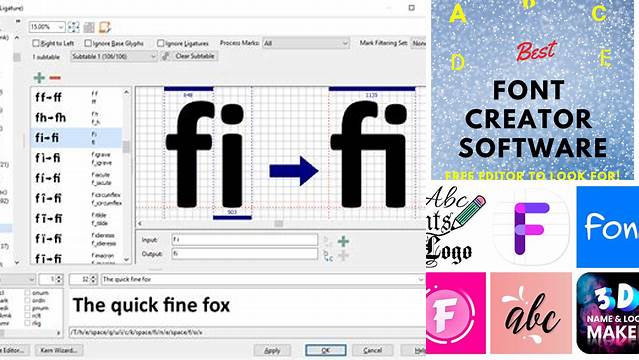
Design Your Own Fonts: Free Font Creator Apps
Hey guys! Ever looked at a font and thought, "I could totally make something better"? Well, you're in luck! Creating your own fonts isn't just for the pros anymore. Thanks to some awesome font creator free app options, anyone with a bit of creativity can dive in. This article will walk you through everything you need to know to get started, from the basics to some advanced tips and tricks. Let's get creative and make some unique fonts! We'll explore the world of digital typography, and how you can become a font designer. This article will provide you with insights into the best free font creation tools, essential design principles, and practical advice to help you bring your font ideas to life. Get ready to turn your handwriting or design concepts into functional, beautiful fonts that you can use for personal projects, commercial endeavors, or just for fun. So, without further ado, let's start crafting those fonts, shall we?
1. What is a Font Creator App and Why Use One?
So, what exactly is a font creator free app? Essentially, it's software designed to let you design and create your own digital fonts. Think of it as a digital workshop for letters, numbers, and symbols. Unlike traditional font design, which required specialized equipment and skills, these apps make it super accessible, even if you're a beginner. Why bother using one? Well, there are a ton of reasons. Maybe you want a font that perfectly reflects your brand identity. Maybe you're tired of the same old fonts and crave something unique. Or maybe you just want to see if you can! Creating your own fonts allows for unparalleled customization, enabling you to tailor every aspect of your typography to your exact needs. This level of personalization can significantly enhance the visual impact of your designs, ensuring your message stands out from the crowd. Furthermore, the process of creating fonts is a great way to learn about typography, enhancing your design skills and providing a deeper appreciation for the art of font design. The accessibility of these apps means that anyone, regardless of their design background, can embark on this creative journey and experiment with font creation. Embrace your creative side and jump into the awesome world of font design!
2. Top Free Font Creation Software for Beginners
Alright, let's get down to brass tacks and talk about some awesome font creator free app options. There are several fantastic choices out there, each with its own strengths and weaknesses. One popular option is FontForge, a powerful, open-source font editor that's packed with features. It might have a bit of a learning curve, but the flexibility and control it offers are worth it. Another excellent choice is BirdFont, which is designed for beginners. This user-friendly program focuses on simplicity and ease of use, making it perfect for those new to font design. It offers a streamlined interface and intuitive tools, so you can quickly start creating your own fonts without getting bogged down in complex features. Additionally, there is also another good choice for a font creator free app which is Glyphs, a more advanced option. It does provide a trial version, so you can test the waters. But, if you're looking for a completely free solution, you might want to check out online font creators that often provide a quick and easy way to create fonts. These tools can be used from any web browser, eliminating the need for software installations. Consider which one best fits your needs and what software you're most comfortable with. Always remember, practice makes perfect, so don't be afraid to try out a few different programs to see which one works best for you. Take your time, experiment with different fonts, and slowly create your own unique collection of font designs. Don't hesitate to explore all options available, because each one of them is beneficial in their own special way!
3. Understanding the Basics of Font Design
Before you dive into a font creator free app, let's cover some fundamentals of font design. First off, you'll want to understand the anatomy of a typeface. This includes things like the x-height (the height of lowercase letters), the ascender (the part of a letter that extends above the x-height, like in 'b' or 'd'), and the descender (the part that dips below the baseline, like in 'p' or 'g'). Understanding these elements is crucial for ensuring your font is legible and visually appealing. Next, think about the different styles of fonts. There's serif (fonts with small strokes at the end of the letters), sans-serif (fonts without those strokes), and script fonts (which mimic handwriting). Each style evokes a different mood and is suitable for different purposes. Another key element is kerning, which is the spacing between individual letters. Good kerning is essential for readability. Poor kerning can make your font look clunky and unprofessional. Also, consider the weight (how bold or light the font is) and the width (how condensed or extended the letters are). These factors greatly affect the overall feel of your font. Remember that it's a balance of creativity and technical understanding. It is recommended to play around and experiment with different shapes, sizes, and designs to find your own unique and stylish design. Understanding the technical aspects of font design will allow you to create fonts that are not only visually appealing but also work flawlessly across various platforms and applications.
4. Sketching Your Font Ideas: From Paper to Digital
Okay, so you've got an idea for a font. Awesome! The next step is to start sketching. Grab a pencil and paper, and let your imagination run wild. Don't worry about perfection at this stage. The goal is to get your ideas down on paper. Sketch out the alphabet, numbers, and any special characters you want to include. Experiment with different styles, shapes, and thicknesses. Once you have a few sketches you like, it's time to bring them into your font creator free app. You can either scan or photograph your sketches and import them into the software, or you can use a drawing tablet to create your letters digitally. Using a drawing tablet provides more precise control and allows you to easily make adjustments. It's important to maintain a consistent style across all your characters. Consistency is key to a cohesive and professional-looking font. Make sure the weight, width, and overall design of each letter are consistent. Refine your sketches in your chosen software. Use the tools available to clean up the lines, adjust the curves, and perfect the shapes. This is where you can fine-tune your designs and create a polished final product. This also involves refining your initial sketches within the digital environment, utilizing the tools to clean up lines, adjust curves, and perfect the shapes. Remember, the sketching phase is essential for translating your creative vision into a functional and visually appealing font. Taking the time to carefully sketch your ideas will give you a solid foundation to build upon as you move into the digital design phase.
5. Digitizing Your Sketches with a Font Creator App
Alright, your sketches are ready, now it's time to digitize them using your font creator free app. The process can vary slightly depending on the software you're using, but the general steps are similar. Start by importing your sketches. Most apps allow you to import images in various formats (like JPG or PNG). Once imported, you'll trace over your sketches using the software's drawing tools. This might involve using a pen tool to create Bézier curves, which are essential for smooth, scalable lines. Be patient and precise as you trace each letter. Take your time to ensure the shapes match your original sketches. Pay close attention to the details, such as the curves, angles, and thickness of the strokes. Once you've traced a letter, you'll typically adjust the kerning (the space between letters) and the side bearings (the space on either side of the letter). Kerning and side bearings are essential for readability and the overall appearance of your font. Make sure each letter has appropriate spacing for a balanced and professional look. Keep in mind that this is the most time-consuming part of the process, but the end result will be worth it. Remember, your goal is to create a font that is not only visually appealing but also functional and easy to use. The key is to take it step by step. Soon enough, you'll have your first font!
6. Mastering Letter Shapes and Curves
When using a font creator free app, mastering letter shapes and curves is paramount. Here's how to do it. First, learn the basics of Bézier curves. They're the backbone of most font creation software. Practice creating smooth, flowing lines with these curves. The more you practice, the better you'll become at controlling them. Pay attention to the points that define the curves. Adjusting these points allows you to refine the shape of your letters. Experiment with different types of curves to achieve different effects. Next, focus on consistency. The curves and shapes of your letters should be consistent throughout your font. Ensure that the stems, bowls, and serifs are uniform. Use the software's tools to copy and paste similar shapes to maintain consistency. Use gridlines to create accurate and well-proportioned letters. Consider the overall balance of each letter. The design must be visually balanced and pleasing to the eye. This includes ensuring that the letter's weight, height, and width are in harmony. It's also a good practice to always check your work. It's crucial to review your work and make necessary adjustments. Keep practicing to achieve the best result! Your attention to detail will significantly impact the professionalism and appeal of your final font.
7. Spacing and Kerning: Making Your Font Readable
No matter how cool your letter shapes are, if your font is hard to read, it's a no-go. That's where spacing and kerning come in. Your font creator free app will have tools to adjust the spacing between letters (kerning) and the space on either side of each letter (side bearings). Kerning is essential for readability. Poor kerning can make letters appear crowded or disjointed. Kern pairs (specific letter combinations, like 'AV' or 'Wa') will need special attention. Ensure there's a consistent amount of space between the letters. Use the software's preview feature to test your font with different words and phrases. This helps identify potential kerning issues. You can also create a custom kerning table. In addition, pay attention to the side bearings. These are the spaces on either side of each letter. Ensure that each letter has enough space so that it does not collide with other letters. The key is balance. Your font should be easy to read and visually appealing. Remember to review your work frequently and make the necessary adjustments. The goal is to create a font that is not only beautiful but also practical and user-friendly.
8. Adding Glyphs and Special Characters
Don't forget the extras! A good font needs more than just the alphabet. With your font creator free app, you'll want to add glyphs (symbols and alternate character shapes) and special characters. Start by adding numbers and punctuation marks. Make sure they match the style of your alphabet. Include the common characters like periods, commas, exclamation points, and question marks. Next, consider adding accented characters (à , é, ü, etc.) if you want your font to support multiple languages. This can significantly increase the versatility of your font. Add symbols, such as ampersands (&), at signs (@), and hashtags (#). Decide if you want to include ligatures (joined letters, like 'fi' or 'fl'). This can add a unique touch to your font. Include alternate characters to provide design variety. These are different versions of the same letter, symbol, or number. Experiment with these characters to give your font more character. Be consistent. The same design principles should apply to all glyphs and characters. Keep the same weight, style, and overall look for a cohesive font. These features enhance the functionality and versatility of your font, making it suitable for various applications. By carefully designing these additional characters, you ensure that your font is well-rounded and capable of meeting the demands of different design scenarios.
9. Testing Your Font: Ensuring It Works Everywhere
Before you release your font to the world, you need to test it extensively. Test your font in different software programs (like Word, Photoshop, etc.). Make sure it displays correctly in various applications. Test your font on different operating systems (Windows, Mac, etc.). Compatibility across different platforms is essential. Check how your font looks in various sizes and weights. Ensure that it's readable at small sizes and looks good in bold. Print out your font to see how it looks on paper. This is a great way to catch any design flaws you might have missed on screen. Use test sentences (like "The quick brown fox jumps over the lazy dog") to check all the letters and characters. Check for any kerning issues or spacing problems. Once you're satisfied, export your font in different formats (like .OTF and .TTF). These formats are widely supported. If you find any issues during testing, go back to your font creator free app and make the necessary adjustments. Thorough testing ensures that your font functions correctly and looks great on any device. This step is crucial to provide a user-friendly experience to all users and applications. Make sure your fonts are top-notch before you unleash them! This final step will make you the best font creator ever!
10. Exporting Your Font: Choosing the Right Format
Alright, so you've tested your font, and it's looking amazing. Now it's time to export it! Your font creator free app will likely offer a few different export formats. The most common ones are .OTF (OpenType Font) and .TTF (TrueType Font). .OTF fonts are generally recommended because they can contain more advanced features, such as ligatures and stylistic sets. .TTF fonts are older, but they're still widely supported, especially on older systems. When exporting, make sure you include all the characters and glyphs you designed. You don't want to leave anything out! Some software might let you customize the export settings. For example, you can specify the character encoding. This is usually Unicode, which supports a wide range of characters from different languages. Make sure to save the source file of your font. You'll need it if you want to make any changes later. Give your font a clear and descriptive name that includes your name or brand. This makes it easier to identify and manage. Choose the right format to ensure that your font works properly across all applications and platforms. Following these guidelines can help you correctly prepare your custom font for use in any setting.
11. Font Creator Apps for Commercial Use: Legal Considerations
Thinking of selling your font? Awesome! But before you make any money, you need to consider some legal stuff. Make sure the font creator free app you're using allows commercial use. Some free software has licensing restrictions. Read the terms of service carefully to avoid any surprises. You'll also need to think about copyright. You own the rights to the font you create, but you need to protect it from unauthorized use. Consider registering your font with the relevant copyright authorities. Think about a license agreement. This is a legal document that outlines how users can use your font. It should cover things like the number of users allowed, the types of projects the font can be used for, and any restrictions on modifying or redistributing the font. Do your research. Check out other font licenses to get an idea of what to include. If you're planning to sell your font, it's always a good idea to consult with a lawyer to ensure you're complying with all the legal requirements. Understanding these legal aspects is crucial for protecting your creative work and ensuring your font is used ethically and legally.
12. Monetizing Your Fonts: Selling Your Creations
So, you've created a killer font and want to make some cash? Here's how to monetize your creations, after you use your font creator free app. The first thing to consider is where you'll sell your font. There are plenty of online marketplaces, such as Creative Market, Etsy, and MyFonts. These platforms offer a wide audience and can handle the payment processing for you. You can also set up your own online store on your website. This gives you more control over the branding and pricing. Set a fair price for your font. Research the prices of similar fonts to get an idea of what to charge. Your price will depend on the quality of your font, the number of characters, and the license type. Create a strong brand for your font. This can include a name, logo, and website. High-quality images of your font are also crucial. Show off your font in various applications. Use mockups to display your font in action. You can also create demo versions of your font, which people can try before they buy. Consider offering different license options, such as personal use, commercial use, and extended licenses. These licenses will allow you to cater to a broader range of customers and generate more revenue. By understanding all the options and legalities, you can make a smart move and create a high-demand font!
13. Free Font Creator Apps: Features to Look For
When choosing a font creator free app, consider the features that matter most to you. First, look for a user-friendly interface. The app should be intuitive and easy to navigate. You don't want to waste time fighting with the software. Consider the drawing tools. Ensure the app provides a variety of drawing tools, such as pen tools, shapes, and brushes. This will give you more control over your designs. Check for advanced features like kerning and hinting. Kerning is crucial for readability, and hinting helps the font look good on different screen resolutions. Make sure the app supports multiple export formats. This allows you to use your font across different platforms and devices. Check for import and export options. You'll want to import images of your sketches and export your finished font in a variety of formats. Community support is also essential. Many apps have online communities where you can find tutorials, tips, and help. Research the app's updates and support. Choose an app that is regularly updated and has good support. Always remember to choose a free font creator app that matches your needs. These elements will help you create your font smoothly and make the process more enjoyable. Choosing the right font creator app is the first step to creating an amazing font!
14. The Importance of Font Design Consistency
Consistency is key when you're using a font creator free app. Consistency in font design is crucial for creating a polished and professional-looking font. Every character must have a consistent style throughout your font. This ensures that the font looks cohesive and works well. Pay close attention to the weight of each letter. Ensure that the strokes have a similar thickness. This gives your font a sense of harmony. The height and width of your letters must be uniform. These factors are essential for readability and design. Make the spacing between each letter consistent. Adjust the kerning so that there's a balanced space between all letters. All your characters should follow the same design principles. Even the special characters should be consistent with the alphabet. In this way, you can create a professional and appealing font. Remember, the goal is to create a font that is not only visually appealing but also functional and easy to use. Consistency helps the font look professional and reliable. Always review your font design and make the required adjustments for a great result. Make sure every character has a consistent design and look.
15. Using a Drawing Tablet with Your Font Creator App
Using a drawing tablet with your font creator free app can significantly enhance the font creation process. A drawing tablet gives you more control and precision when drawing your letters. This results in more accurate and polished designs. It also offers pressure sensitivity, which means you can vary the thickness of your lines by pressing harder or softer on the pen. This can add detail and character to your fonts. Consider the benefits. A drawing tablet helps you create smooth curves and shapes, which are essential for font design. It gives you a more natural and intuitive drawing experience compared to using a mouse. Set up your drawing tablet with your font creation software. Most software is compatible with drawing tablets. Experiment with different pen settings and pressure curves to find what works best for you. Start by sketching your letters on paper. You can then trace your sketches in the app. Take your time and be precise with the tablet. The result will be well worth the effort. This process allows you to have a fully integrated creative experience. Always remember to practice, so you can create your own unique fonts!
16. Color Fonts: Adding Color to Your Creations
Color fonts are the latest trend in typography. With a font creator free app, you might be able to create color fonts. A color font is a font that includes multiple colors in each character. This makes it easier to create colorful and eye-catching designs. Not all font creators support color fonts. Check if your chosen app offers this feature. If it does, it might support different color font formats, such as SVG (Scalable Vector Graphics). Design your characters with different colors. You can use layers to create complex designs. Keep in mind that color fonts can be more complex to create. Test your color font carefully to make sure it displays correctly on different devices and browsers. The creation of color fonts opens up exciting possibilities for your design projects. Create unique and visually stunning projects with your font design! Not all font creator apps support color fonts. Carefully research which software is right for your design style. Take your time creating each color font and take a new step in the typography world!
17. Kerning and Tracking: Fine-Tuning Character Spacing
Kerning and tracking are essential for making your font look professional. When you use a font creator free app, you'll use tools to manage the spacing between letters and words. Kerning is adjusting the space between individual letters. Your font creator will have tools to adjust kerning. Practice adjusting kerning to improve the appearance of your font. Pay attention to pairs of letters that look awkward. These pairs need kerning. For example, the letters 'AV' often need to be kerned. Tracking is adjusting the overall spacing between all characters in a block of text. Tracking affects the readability and visual balance of the text. You can use the font creator's kerning tools to adjust the tracking. Be subtle in your adjustments. Small changes can make a big difference. Your goal is to create text that is easy to read and visually appealing. Always check your work and make adjustments. Proper kerning and tracking are essential for creating a professional-looking font and well-designed text.
18. Designing for Readability: Tips for Legible Fonts
Readability is crucial for a great font. Your font creator free app can help you design a font that is easy to read. Start by making sure your font has a clear and distinct design. The letters must be easy to differentiate. Avoid overly stylized fonts that are difficult to read. Ensure that your font has sufficient x-height. The x-height is the height of the lowercase letters. Fonts with a large x-height are generally more readable. Keep the letterforms open and avoid tight spaces. Tight spaces can make your font look cramped and difficult to read. Select the right font style. Serifs can help guide the eye, while sans-serifs are often more readable on screens. Choose the right weight and contrast for your font. A font that is too thin or too bold can be difficult to read. Use the right amount of spacing. Kern and track your font carefully. Review your font for readability. Test your font on different text sizes and backgrounds. Test your font on your friends, family, and colleagues. Readability is essential to create a successful font. Your goal is to create a font that is not only aesthetically pleasing but also functional.
19. Understanding Font Licensing: Protecting Your Work
Font licensing is vital for protecting your hard work. After creating your font with a font creator free app, it is essential to understand font licensing. It defines the rights and limitations of using your font. This step will also help you to protect your work. There are many different types of font licenses, such as a personal use license. This is usually used for non-commercial purposes. There is also a commercial use license. This allows your font to be used for commercial projects. Read the license agreement carefully to ensure that your font is used in accordance with the law. Consider including a license agreement with your font. This will prevent unauthorized use. There are several ways to protect your font, like the copyright. You own the copyright for your font. You can register your font with the copyright authorities. This provides additional protection. Your understanding of font licensing will ensure that your font is used legally and to your specifications.
20. Best Practices for Font Design Aesthetics
When designing your font with a font creator free app, there are key aesthetics to consider. Think about the balance. Your font should have a good visual balance. Consider the shapes of the letters. Ensure that your letters have a consistent style throughout your font. This will help in the aesthetics of your font. A font must be well-proportioned. Proportions can affect the aesthetics and readability of your font. Choose a suitable font style. The correct font style will match your intended use. Refine the details of your font. Consider adding special characters, ligatures, and alternates. Testing your font is very important. Test your font on different devices and in various sizes. Aesthetics can improve the overall look and feel of your font. It will influence the user experience. Your font design should attract attention and make a lasting impact. Remember that good font design is a balance of visual aesthetics and functionality.
21. The Role of Font Weight and Style
Font weight and style play essential roles when using a font creator free app. Font weight refers to the thickness of the strokes that form your characters. Styles include things like italic and bold. Font weight is used to create different versions of your font. Choosing the correct weight is essential for readability. Light fonts are good for headlines. Bold fonts are perfect for emphasis. A font's style adds a specific look. Italic fonts can create a sense of movement. Using the right weight and style is important for conveying different emotions in your text. These can also enhance your visual impact. Experiment with different weights and styles to understand how they affect the overall appearance of your font. Selecting the right weight and style depends on the intended use of your font. Understanding how to manipulate font weight and style will improve your font design.
22. Advanced Features in Font Creation Software
Many font creator free apps offer advanced features beyond the basics. Look for OpenType features. OpenType fonts can support ligatures. These are the characters that join to enhance the visual look. Consider stylistic sets. These are multiple variations of your font. Explore kerning and hinting. Kerning improves the spacing between your characters. Hinting improves your font's appearance on various screen resolutions. Explore the software's support for international characters. This allows you to support a wide range of languages. Consider the software's import and export options. The software must also support various formats. Practice different methods to create a high-quality font. By using the advanced features, you can create a font that is both functional and visually appealing.
23. Using Inspiration and Mood Boards in Font Design
Using inspiration and mood boards can make your font creation stand out. Create your mood board. Gathering inspiration will help you. This is the foundation of your project. Browse various sources. Websites, print media, and artwork are all great sources. Think about the mood you want to capture. Your mood board should be consistent. Use your mood board to guide the overall look of your font. You can also create a style guide. This will keep your project's style consistent. Your mood board will inspire you to make your font. Use the mood board for your character designs. Always refer to your mood board throughout the font creation process. This will help you make a unique font and provide an awesome result!
24. Font Creation for Different Design Applications
When using a font creator free app, the application you intend to use your font in can change your design. If you plan to use your font in a logo, keep in mind its scalability. Make sure your font is easily readable. Your font should be clear and easy to read in various sizes and resolutions. When designing your font for a website, consider its legibility. Choose a font that complements the website's overall style. If you are creating a font for print, consider the resolution and color mode. Your font must match your intended format. Create the appropriate design and style for your font. The application will define the characteristics and functionality of your font. Consider the context of your font when you design it. Using different applications with your font will determine how you develop your font. Remember, different design projects require different design decisions.
25. Troubleshooting Common Font Design Issues
When using your font creator free app, you'll likely face common font design issues. First, there may be spacing problems. Make sure there is an adequate amount of spacing between letters. Next, there can be kerning issues. Kerning helps improve the appearance of your font. Review your letterforms. Make sure each letter has a consistent style. Consider the style of your font. Your font's style should be consistent with the overall feel of the design. Take time to review your test words. Test your font for any potential flaws. Troubleshooting can help you improve your font design. Consider the design's style. This step is crucial for your font's usability. It will also help you in fixing your mistakes. Learning how to troubleshoot these common issues will save you time.
26. Creating a Font Family: Designing Multiple Weights and Styles
Creating a font family means designing multiple weights and styles with your font creator free app. This creates consistency across multiple fonts. Start by designing the base style of your font. This will be the foundation for the different weights. Next, add different weights and styles, such as bold and italic. Add variety to your font, but be consistent with the overall design. Create a unified look. Your goal should be to create a font family. Design multiple weights. This will provide a variety of design options. Ensure that all variations match the overall style. Design your font's style consistently. Creating a font family can be a great opportunity. It will also give users more flexibility. Always follow the guidelines and adapt the font family to match. Your font family will provide flexibility and enhance the usability of your font. Your efforts will bring better results and make your font more useful.
27. The Future of Font Design and Technology
The future of font design is exciting. With your font creator free app, you can be on top. Expect more AI-powered tools. AI will help automate many aspects of font creation. The future will bring greater accessibility. Font design will become available to more people. Expect new variable fonts. These fonts can create different weights and styles within a single file. Stay ahead of the curve by learning the new technologies. Keep creating fonts! New technologies will continue to change font design. The combination of creativity and technology makes for the next generation of font design. Your innovation will determine the future of font creation!
28. Font Design Workflow: A Step-by-Step Guide
Here's a guide on how to use your font creator free app. The first step is to plan your font. You should know the goal and style of your project. Next, you should sketch your characters. This will help you with the design's look. Digitize your sketches. Import your sketches into your app. Create your character shapes. Adjust spacing and kerning. These steps will affect readability. Test your font. You will need to test for functionality and usability. Export your font, choose the right format, and make adjustments. This will allow you to create great fonts. By following this step-by-step guide, you will be well on your way to creating your own font. Remember to follow each step for the best results. With practice, you will become a font creator master!
29. Resources and Tutorials for Learning Font Design
Want to learn more about font design? Here are some resources for your font creator free app. Start by checking online tutorials. Online resources can help you with the basics. Explore the software manuals. The software manuals will guide you through the program. Take online courses. This will help you with your skills. Browse different font design blogs. Reading the blogs will help you improve your design. Join online communities. Share your experiences. You can practice your new skills. Consider the tips of design experts. Following these steps will help you become a font master. Explore these resources. This will help you expand your knowledge and improve your skills. Start by exploring resources and tutorials! These resources will help you become a font designer.
30. The Joy of Creating Your Own Font: Unleash Your Creativity
Ultimately, creating your own font with a font creator free app is a creative journey. It's all about expressing yourself. With your font, you can create a unique design. You can turn your creative ideas into reality. Explore this world of typography! Enjoy the process of creation. Celebrate your unique style with your font. It is a fun and fulfilling experience. Don't worry if it's perfect. You are creating your own font. Remember to enjoy the process of learning and creating. Embrace the joy of making something unique and express your creativity! Remember that practice makes perfect! The most important step is to have fun. Go out and start creating your own font! Your font will tell your unique story and stand out!